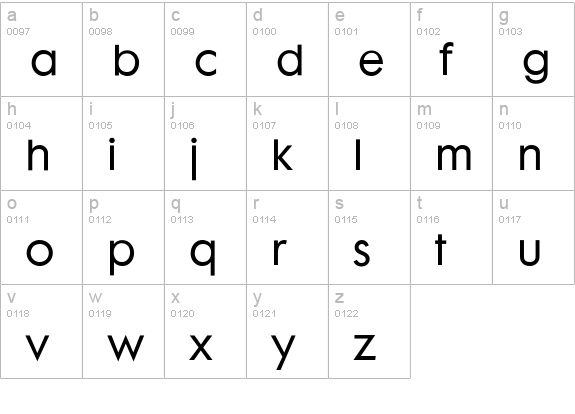
CgFuturaMaxi-Book is a comfortable, highly readable variant in the CgFuturaMaxi typeface family \xE2\x80\x94 well suited to long-form body text, articles, and editorial content.
CgFuturaMaxi-Book is a versatile and modern font that is perfect for a wide range of design projects. Its clean lines and classic style make it suitable for both professional and creative purposes. This font exudes sophistication and elegance, making it a great choice for branding, editorial design, and more. What sets CgFuturaMaxi-Book apart is that it is available for free download at FontsMarket.com. This means that you can easily access this high-quality font without any cost, making it a valuable addition to your font library. Whether you are a designer, student, or hobbyist, CgFuturaMaxi-Book is a must-have font that will elevate your designs to the next level. Download it today and unleash your creativity with this stunning typeface.